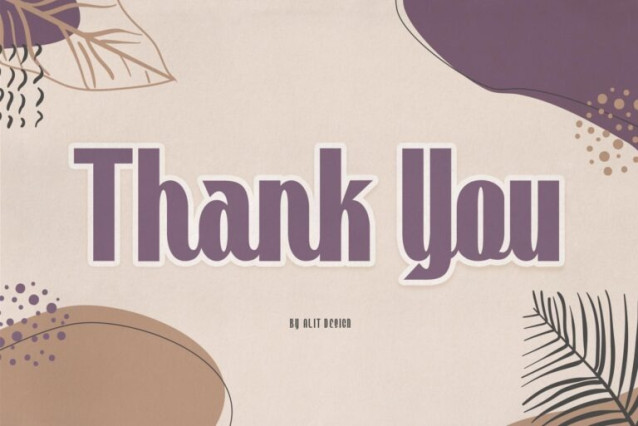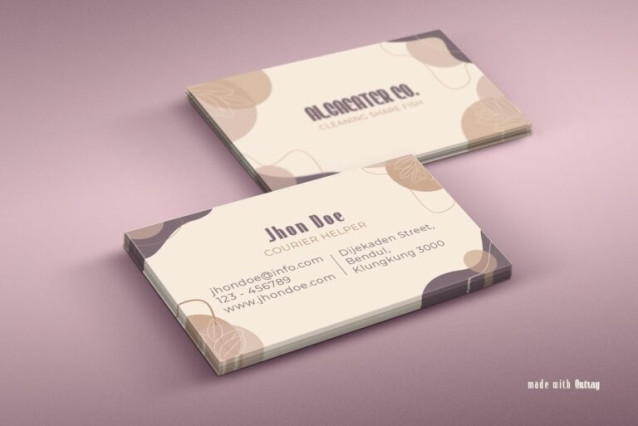
Sutra Font
Sutra Font has a script style with a retro theme that is unique and cool. This font when used for making poster designs, logotypes, text headers and magazine covers is very attractive because of its uniqueness. Sutray Typeface also have 7 families from Thin to Bold. So designers or non-designers if using the Sutray Typeface can be very easy to use and choose a family that is suitable for the design to be made.